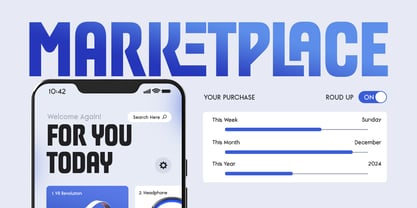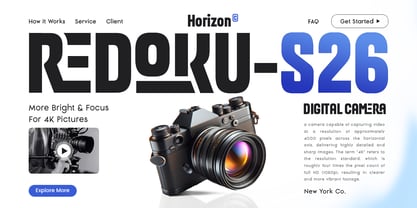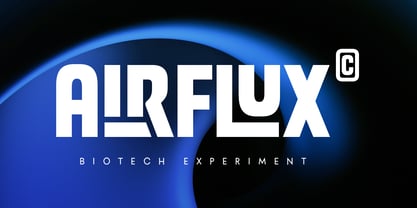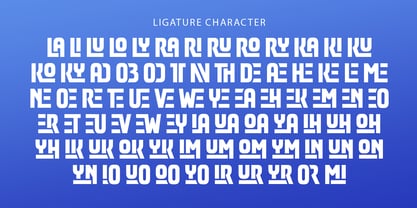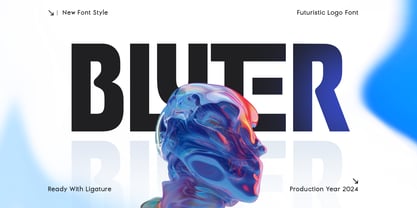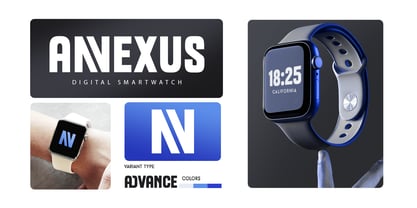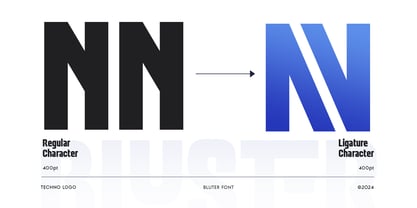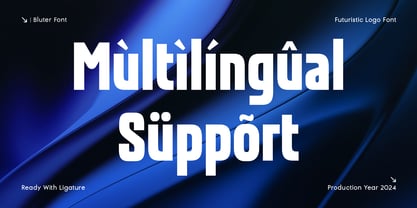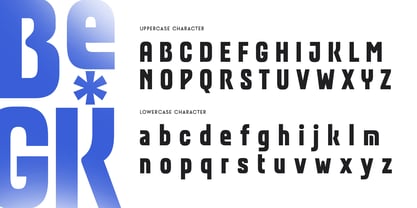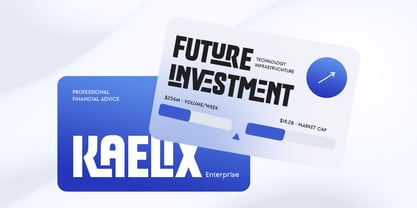
Bluter – Futuristic Logo Font
BLUTER is a futuristic logo font designed for modern branding, tech projects, and digital creative designs. Ideal for logos, UI/UX, posters, and high-tech branding, it combines sharp geometric forms with a sleek, contemporary aesthetic.
With clean and precise letterforms, BLUTER ensures readability and a professional, modern look for both print and digital applications, making it perfect for tech startups, gaming, and sci-fi inspired projects.
BLUTER – Futuristic Logo Font Features
Futuristic and modern character set
Perfect for logos, branding, and digital designs
Uppercase, lowercase, numerals, and punctuation included
OpenType features for extra versatility
Multilingual support for
Afrikaans, Albanian, Asu, Basque, Bemba, Bena, Breton, Chiga, Cornish, Dutch, English, Estonian, Filipino, Finnish, Friulian, Galician, German, Gusii, Indonesian, Irish, Italian, Kabuverdianu, Kalenjin, Kinyarwanda, Luo, Luxembourgish, Luyia, Machame, Makhuwa-Meetto, Makonde, Malagasy, Manx, Morisyen, North Ndebele, Nyankole, Oromo, Portuguese, Quechua, Romansh, Rombo, Rundi, Rwa, Samburu, Sango, Sangu, Scottish Gaelic, Sena, Shambala, Shona, Soga, Somali, Spanish, Swahili, Swedish, Swiss, and more.